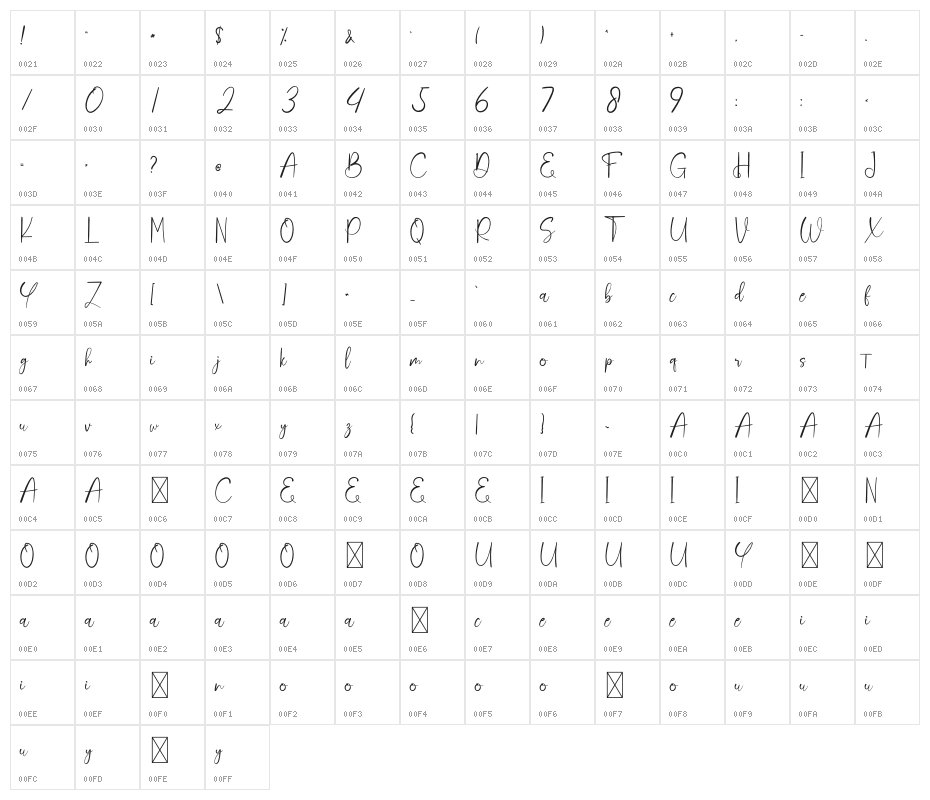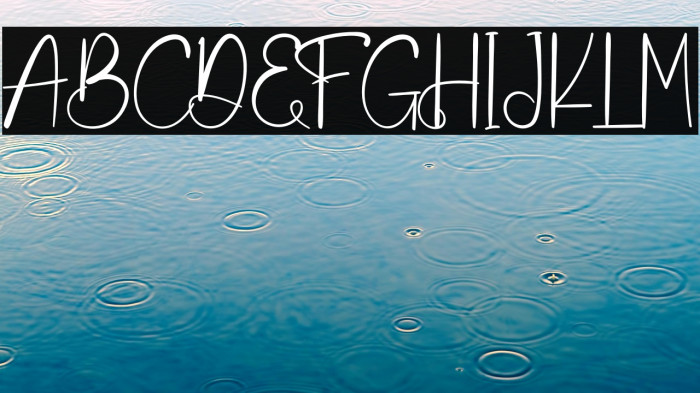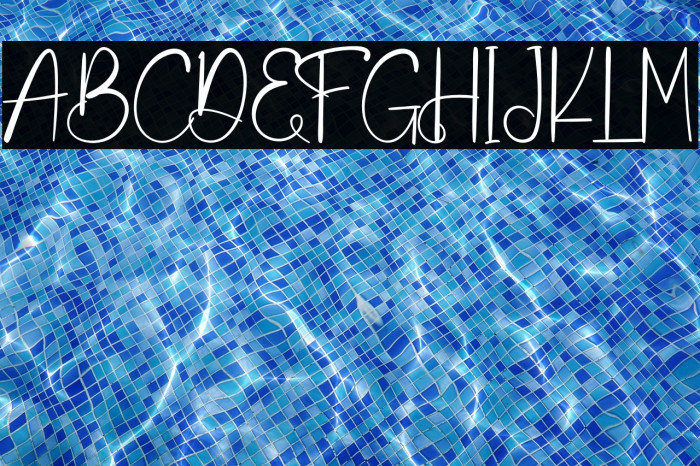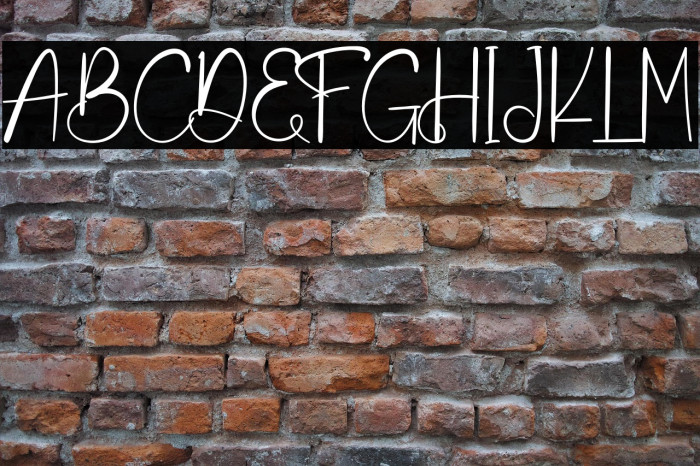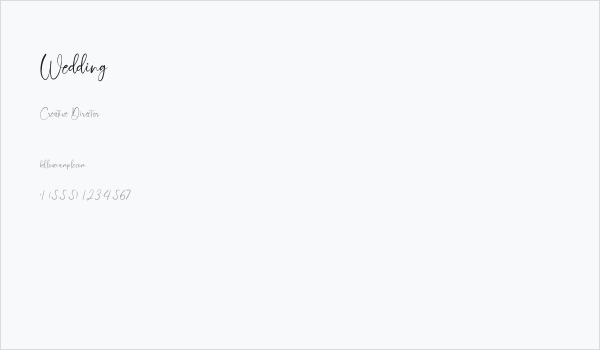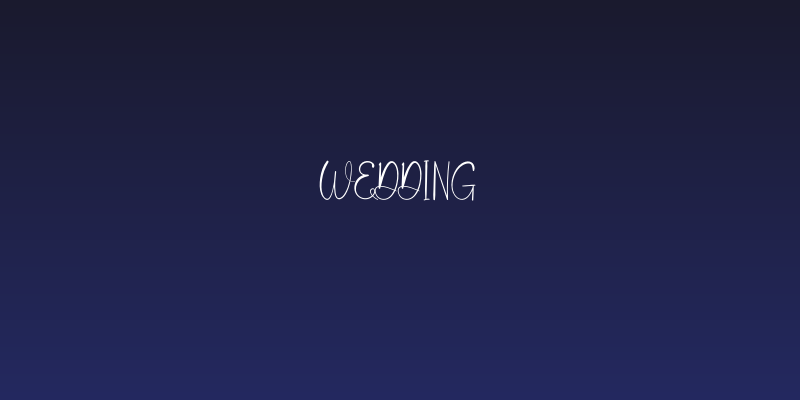
Wedding Font
Wedding Description
This font features an elegant and flowing script style, characterized by its graceful curves and loops. The uppercase letters are tall and slender, with a slight slant that adds a sense of movement and fluidity. The lowercase letters complement the uppercase with their delicate and airy strokes, maintaining a consistent rhythm throughout. The numerals are stylish and slightly elongated, matching the overall aesthetic. Special characters are thoughtfully designed, integrating seamlessly with the rest of the font. This font exudes sophistication and charm, making it ideal for formal and celebratory occasions.
| Categories | Script |
| Overall Style | Elegant |
| Use Case | Invitations, Branding, Greeting Cards |
| Proposed Projects | Ideal for wedding invitations, elegant branding, greeting cards, and upscale packaging. |